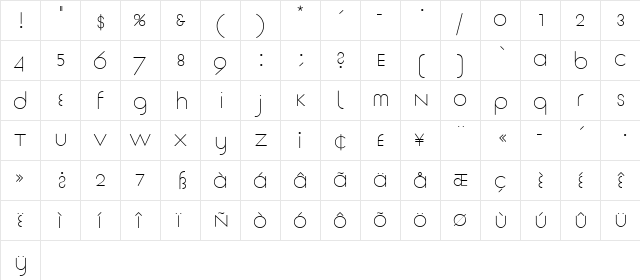
Tschicholdarchitype Regular
Design Context for Tschicholdarchitype Typeface
Tschicholdarchitype takes a measured approach to typography — its balanced proportions and neutral character make it a reliable workhorse for both digital and print work.